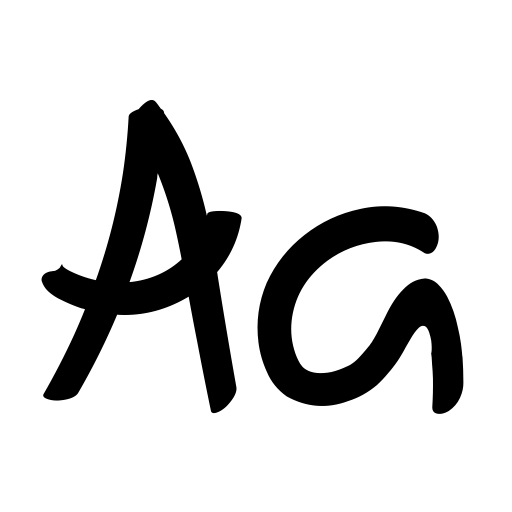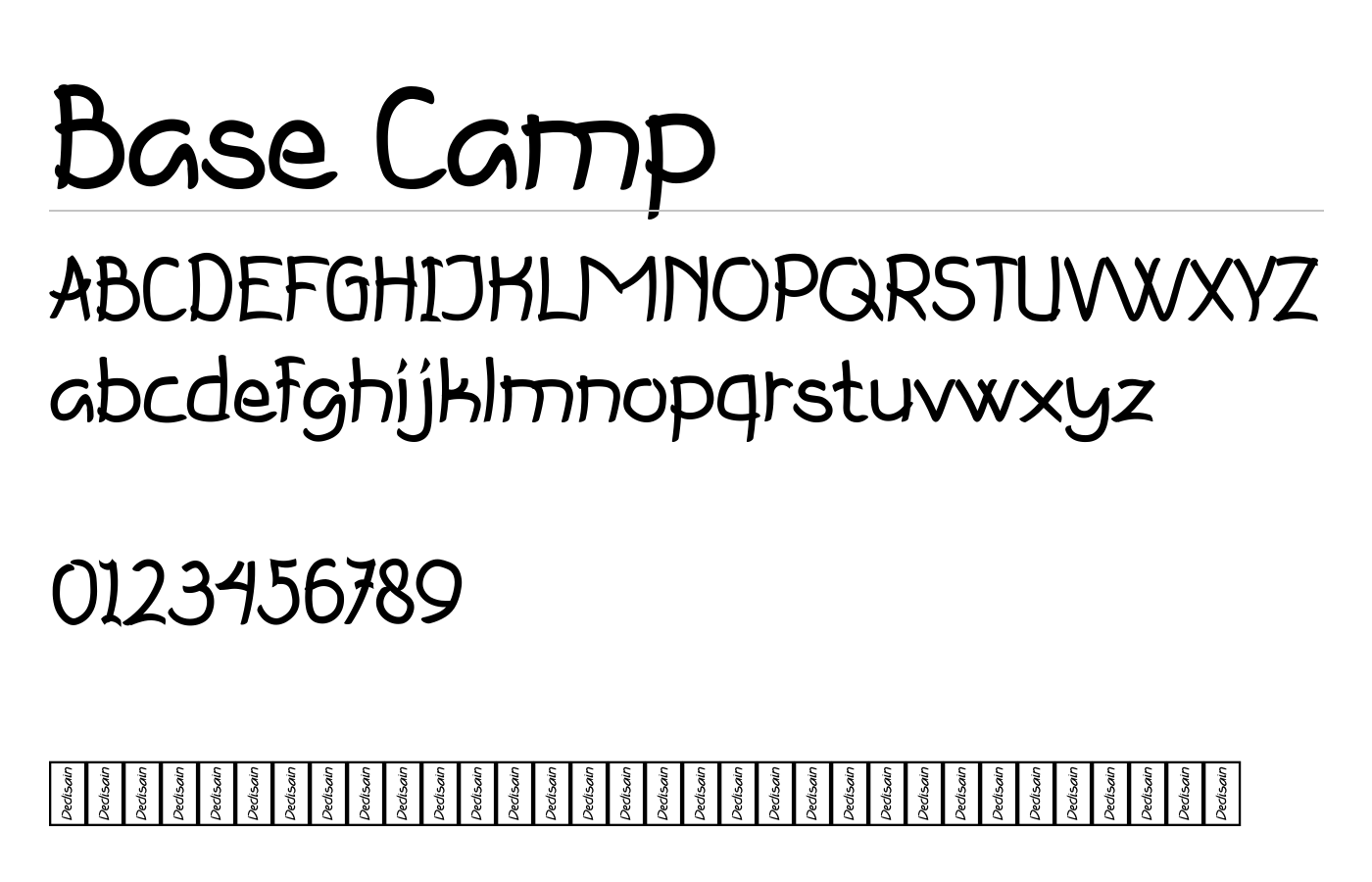
Base Camp is a casual, hand-drawn sans serif font with a playful and friendly feel. Its irregular shapes and lively strokes give it a warm, approachable personality, making it perfect for informal designs, children’s content, or creative branding that wants to express fun and authenticity. This font works well in headlines, logos, and packaging where a unique, handcrafted look is desired.
Base Camp Font